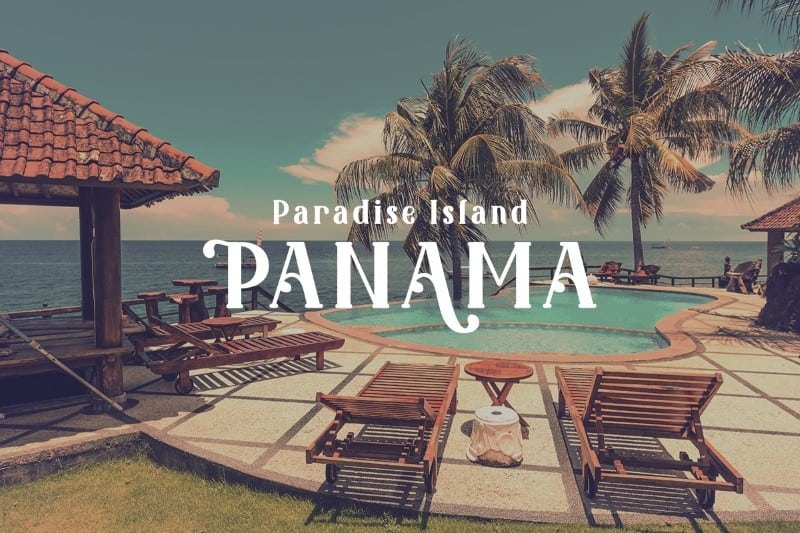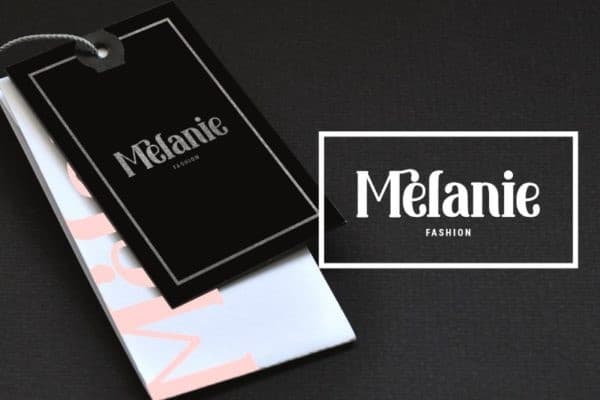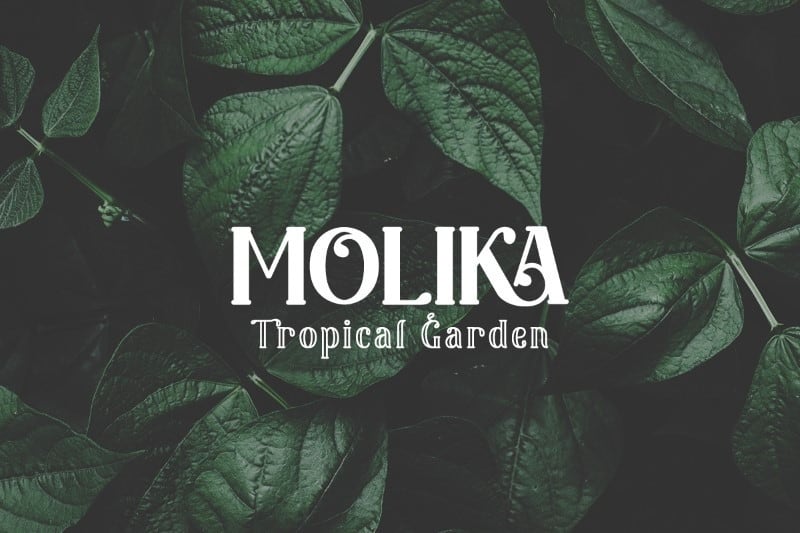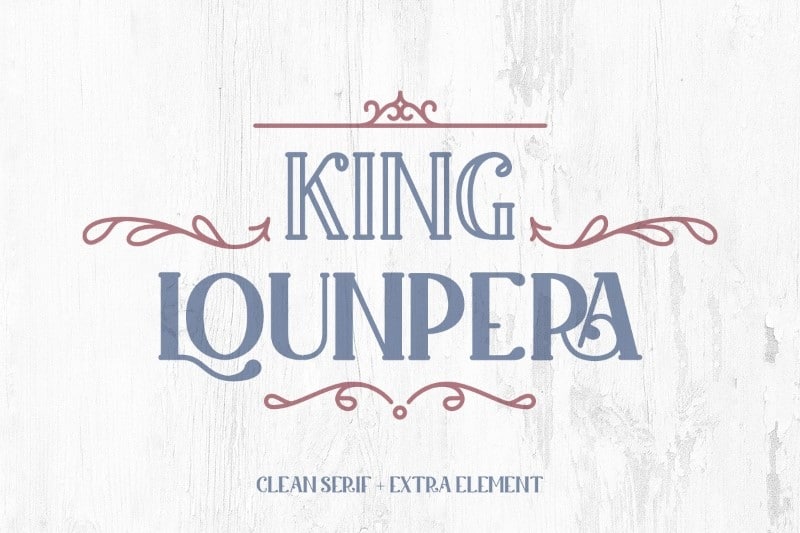
King Lounpera Display Font is perfect for modern and retro designs. Although it’s primarily meant to be used as a display font, it also has a set of lowercase characters with ligatures and alternates that make it look unique and super customizable. Made from font designer named Yumna Type. This typeface is a beautiful Display font. The family consist from 2 font Solid and Outline. This font is suitable for any design like branding, quotes, t-shirt printing and etc.